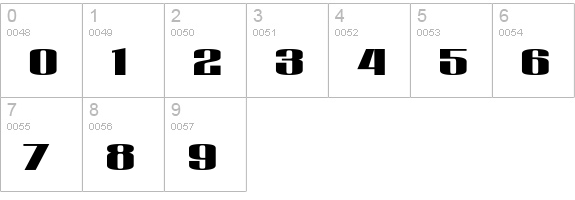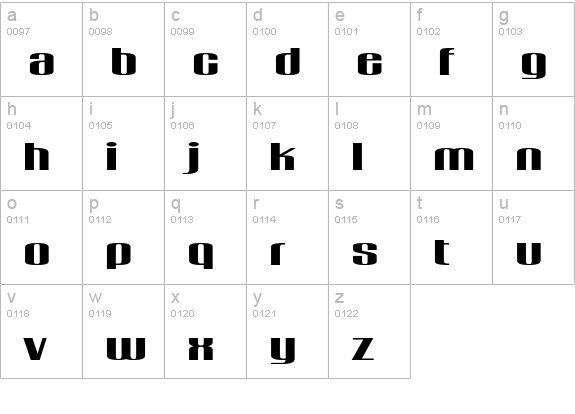
gogo•squat Font Details
Introducing gogo•squat font, a stunning and versatile typeface that will bring your designs to life! This unique font features a playful and modern style, making it perfect for a wide range of projects. Whether you're designing a logo, poster, or website, gogo•squat font will add a touch of creativity and personality to your work. One of the best things about gogo•squat font is that it is completely free to download. That's right, you can access this amazing font at no cost on FontsMarket.com. With just a few clicks, you can start using gogo•squat font in your projects and take your designs to the next level. Don't miss out on this fantastic opportunity to enhance your creations with gogo•squat font. Download it today and let your creativity soar!